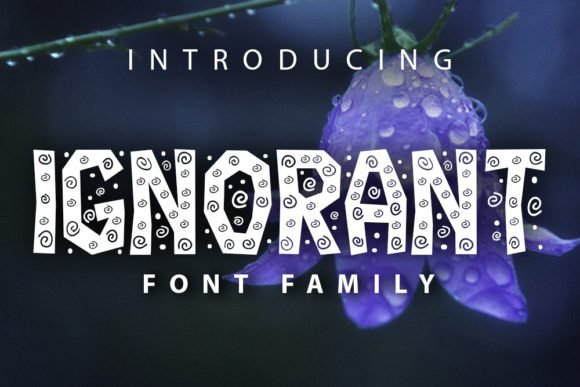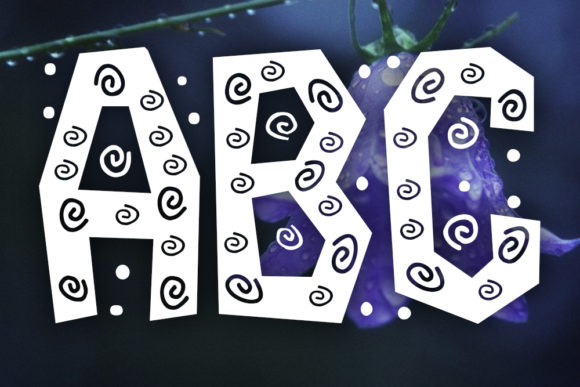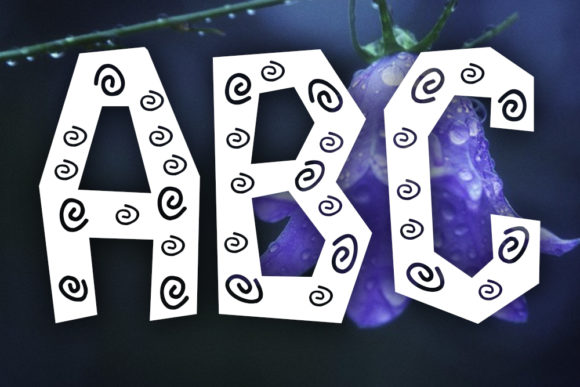
The Perfect Blend of Style and Ignorance: Introducing the Ignorant Font
Do you ever find yourself stuck in the middle of a design project, desperately searching for the perfect font to elevate your creation? You know, that moment when everything else falls into place, but the typography just isn’t quite right? That’s exactly what happened to us when we stumbled upon the Ignorant Font.
Developed with the intention of adding a touch of whimsy and playfulness to designs, the Ignorant Font is a decorative font that’s perfect for creating eye-catching posters, t-shirts, banners, and more. With its unique style, the Ignorant Font adds a dash of personality to any project, making it a valuable asset for designers looking to take their work to the next level.
Whether you’re a seasoned pro or just starting out, the Ignorant Font is sure to bring a breath of fresh air to your designs. Its versatility and charm make it an essential tool for anyone looking to add a bit of ‘ignorance’ to their creative projects – and by that, we mean a healthy dose of creativity and experimentation.
Key Features of Ignorant Font
- Unique Characteristic: The Ignorant Font is known for its unconventional and quirky design, with unique letterforms and ligatures that add a touch of personality to any text.
- Kerning and Ligatures: The font includes advanced kerning and ligature tables, allowing for precise control over the spacing and connection of letters for a more polished and professional look.
Ignorant Font Review
As a designer, I’ve had the chance to work with the “Ignorant Font” and I must say, it’s an interesting choice. ✨ One thing that works well is its uniqueness. The font has a quirky, playful feel to it that can add a lot of character to a design. It’s perfect for creating a fun, carefree atmosphere.
Another advantage of the “Ignorant Font” is its versatility. It can be used for both digital and print designs, making it a great choice for designers who work on a wide range of projects. The font also comes in a variety of weights and styles, which gives designers a lot of flexibility when it comes to customizing their designs.
However, there are a few limitations to the “Ignorant Font” that designers should be aware of. ⚠️ One major issue is its readability. The font can be quite difficult to read, especially in smaller sizes or when used for large blocks of text. This can be a problem for designers who need to communicate complex information to their audience.
- Readability issues
- Limited font pairing options
- Not suitable for formal or professional designs
Overall, the “Ignorant Font” is a fun and quirky choice for designers who want to add some personality to their designs. While it may not be suitable for all types of projects, it’s definitely worth considering for designs that require a playful touch.
Getting the Most Out of Ignorant Font
For the best results, use the Ignorant Font sparingly and in creative contexts. It’s ideal for adding a touch of whimsy or humor to your designs. Experiment with different font sizes and colors to create a visually appealing effect.
The Ignorant Font is commonly used in:
- Social media graphics and posts
- Marketing materials and advertisements
- Humorous or satirical content
Q: Is Ignorant Font suitable for body text or should it be reserved for headlines?
Due to its unconventional design, Ignorant Font is not recommended for body text, where readability is a top priority. However, it can be a striking choice for headlines, titles, and other display text where visual impact is more important than legibility.